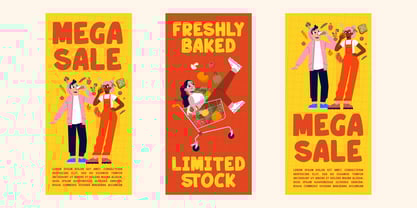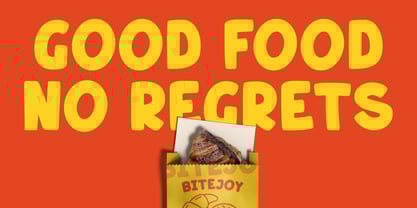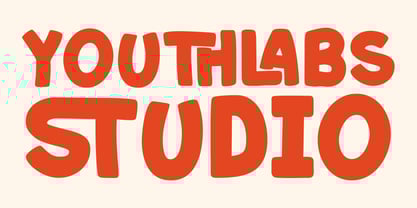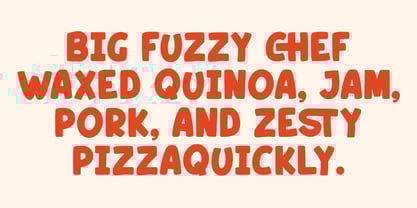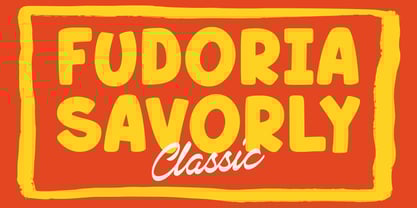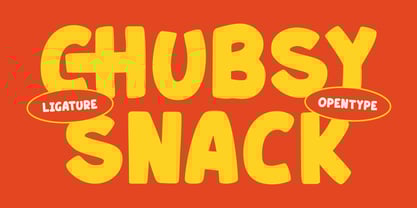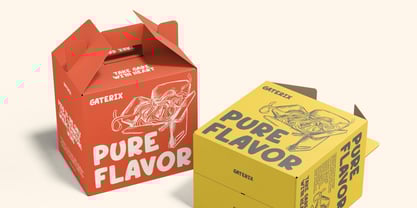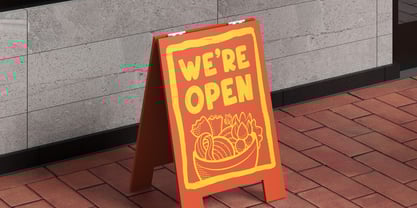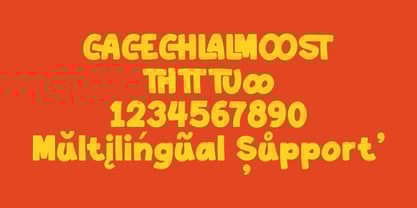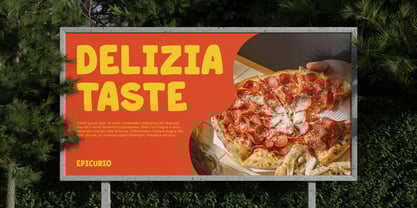
Chubsy Snack
The Chubsy Snack Font Family was designed by Fathi Al Ghazi and published by Youthlabs. Chubsy Snack contains 1 styles.
Chubsy Snack is a playful display font with chunky shapes, rounded curves, and a cheerful personality. Designed to feel bold, fun, and deliciously expressive, this font is perfect for food branding, snack packaging, kids projects, posters, menus, logos, and joyful headlines. With OpenType features and cute ligatures, Chubsy Snack brings a friendly, tasty vibe that instantly grabs attention and makes designs feel warm and approachable.